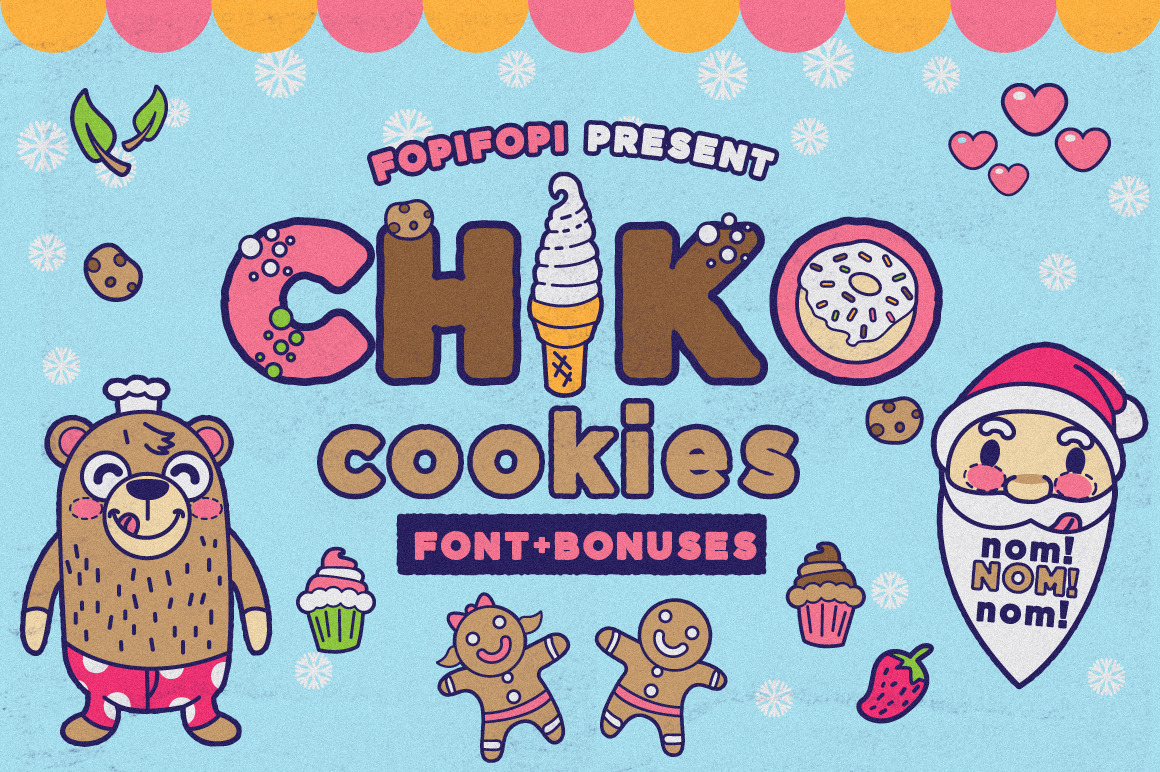
Chiko Cookies Typeface + Cute Bonus
Chiko Cookies is a unique and fun font, Inspired by cookies and cream. You can use Chiko Cookies Font in any setting; tee design, christmas merchandise, children’s books, tee design, titling on movie, poster, cd cover for kid's song album, sign for the kid's area,etc ...the space is your limit !
Bonus : -Uppercase -Lowercase -Numerals & Punctuations -Cute Vector Pack